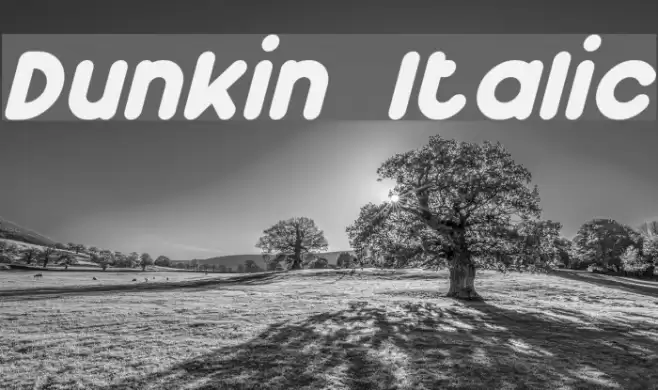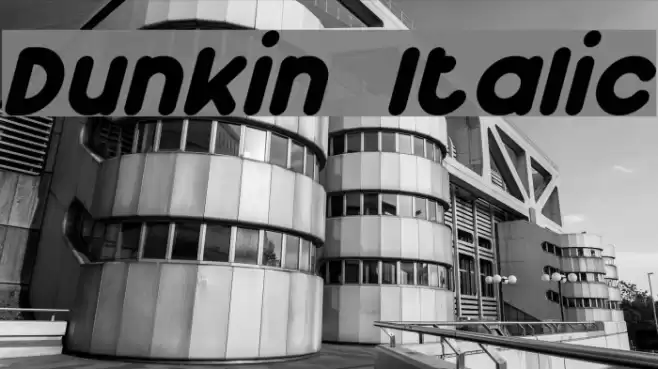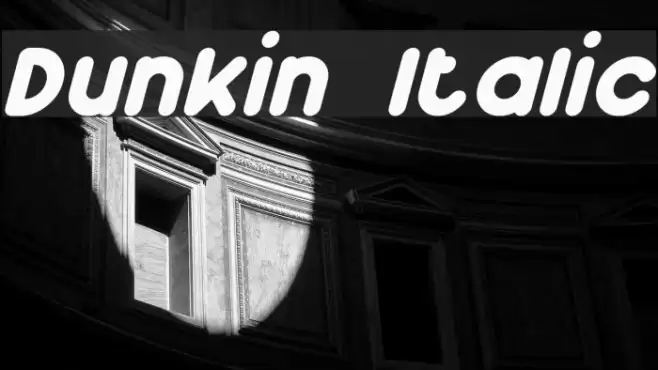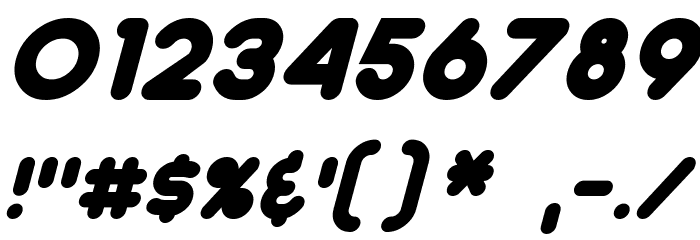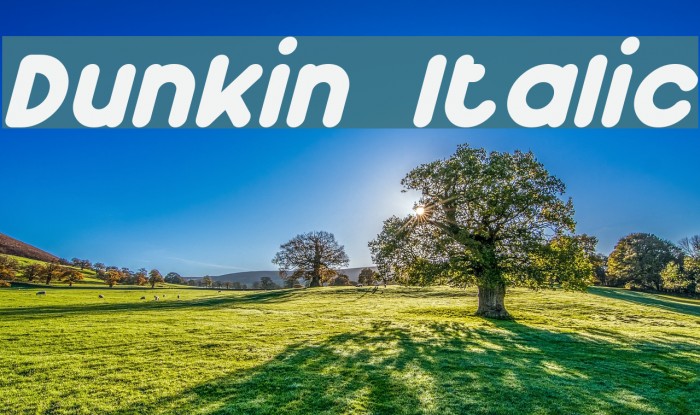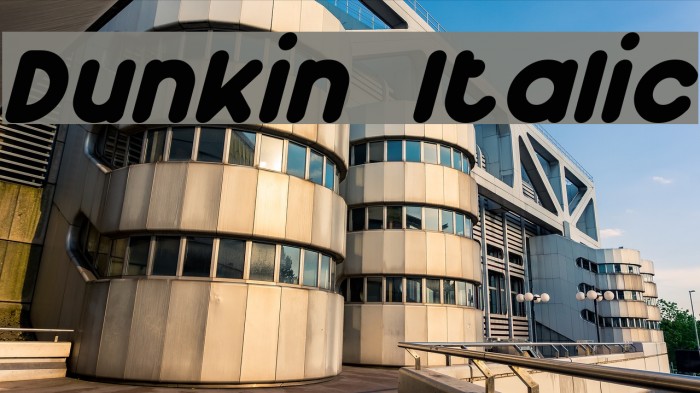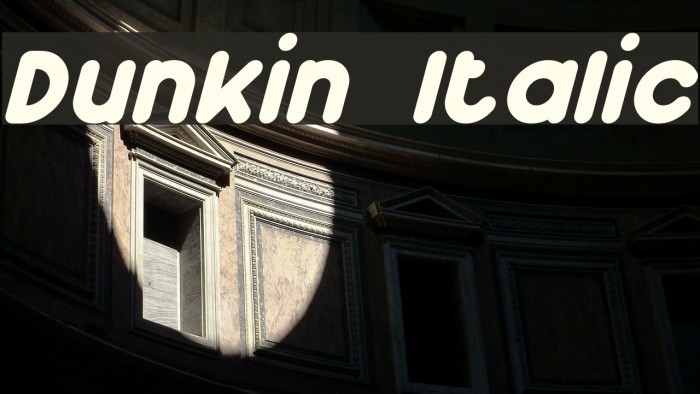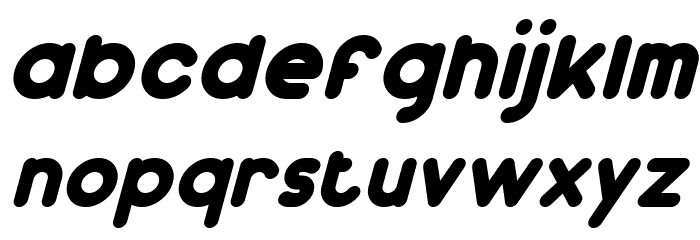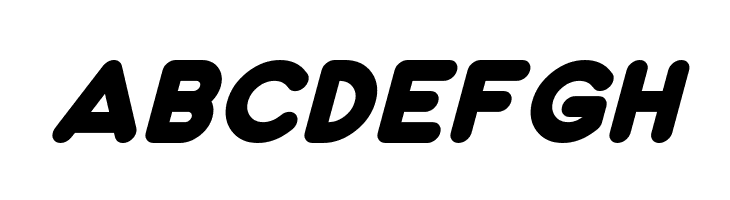
Dunkin Italic
This font features a playful and bold style with rounded edges and a slight slant, giving it an italicized appearance. The characters are thick and robust, conveying a sense of friendliness and approachability. The rounded terminals and consistent stroke width contribute to its modern and casual look. The font maintains a uniform weight throughout, ensuring readability while adding a touch of fun. Its design is well-suited for creating an inviting and energetic atmosphere, making it ideal for branding and advertising purposes.
A bold, rounded, and italicized font with a playful and modern style.
- Proposed Projects: Ideal for branding, advertising, packaging, and signage that require a friendly and approachable look.
- Use Case: Logos, Headlines, Branding